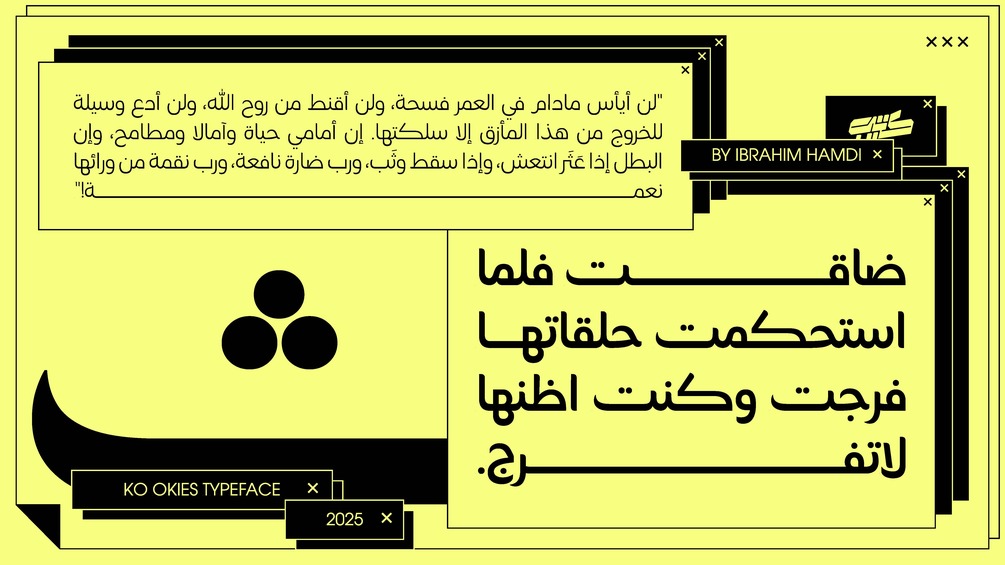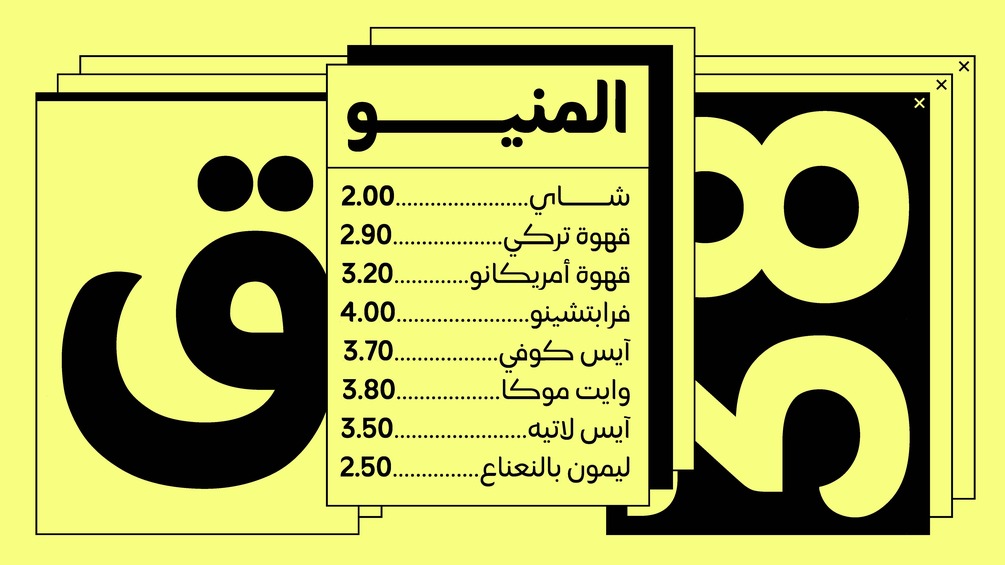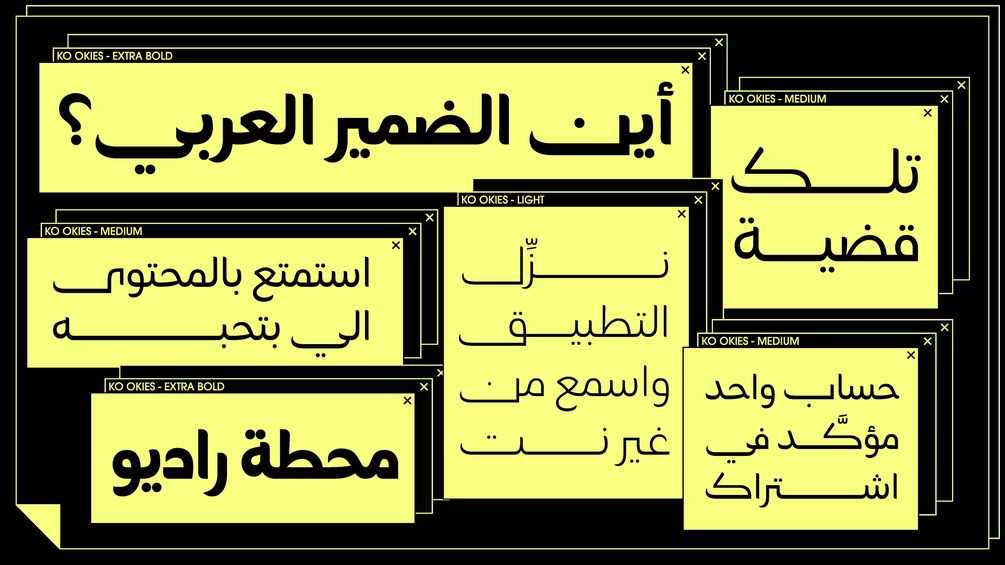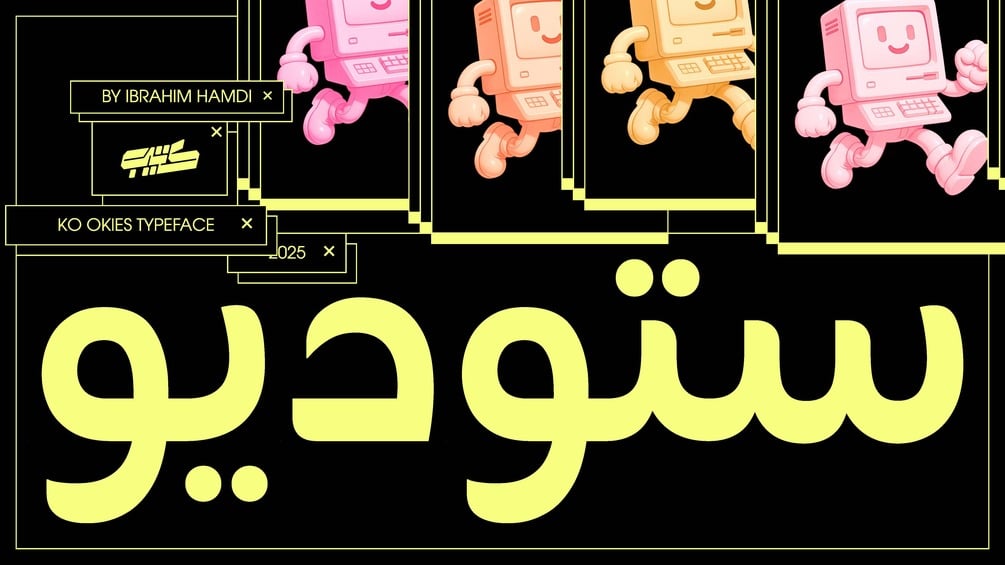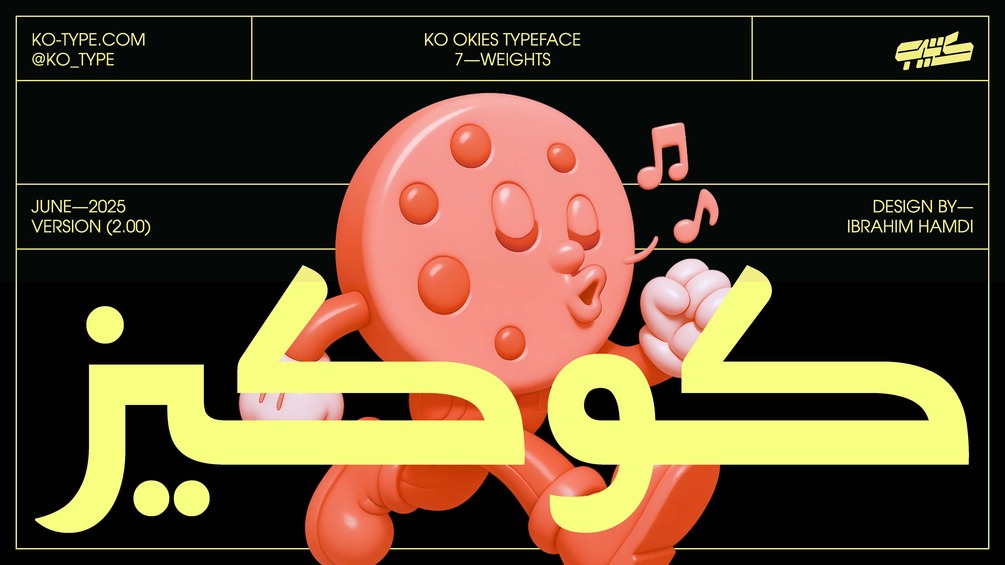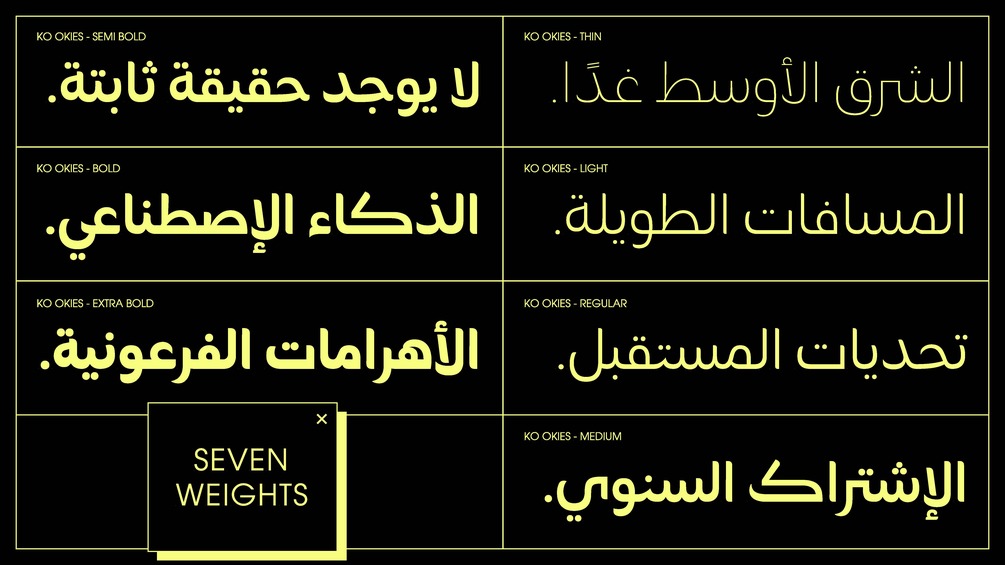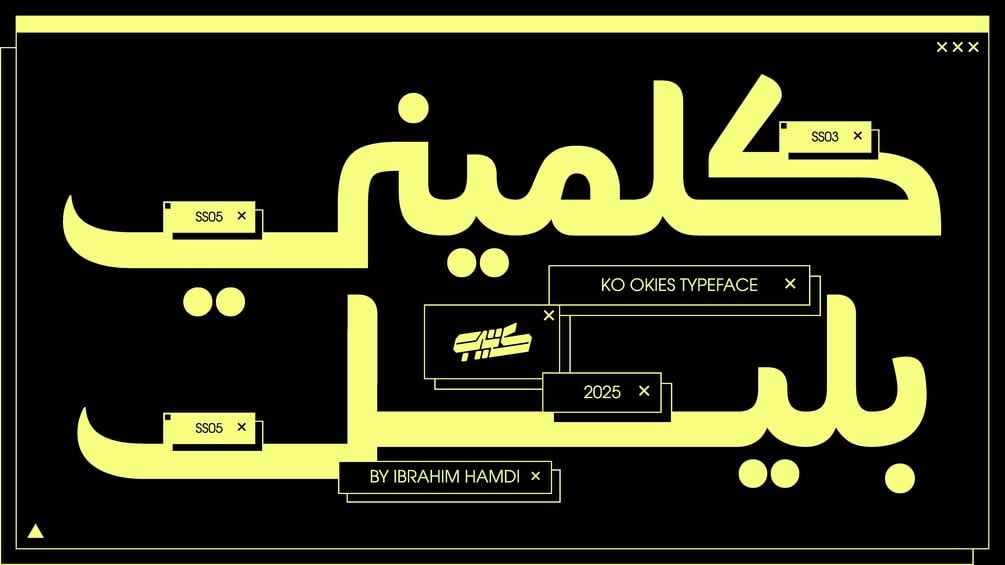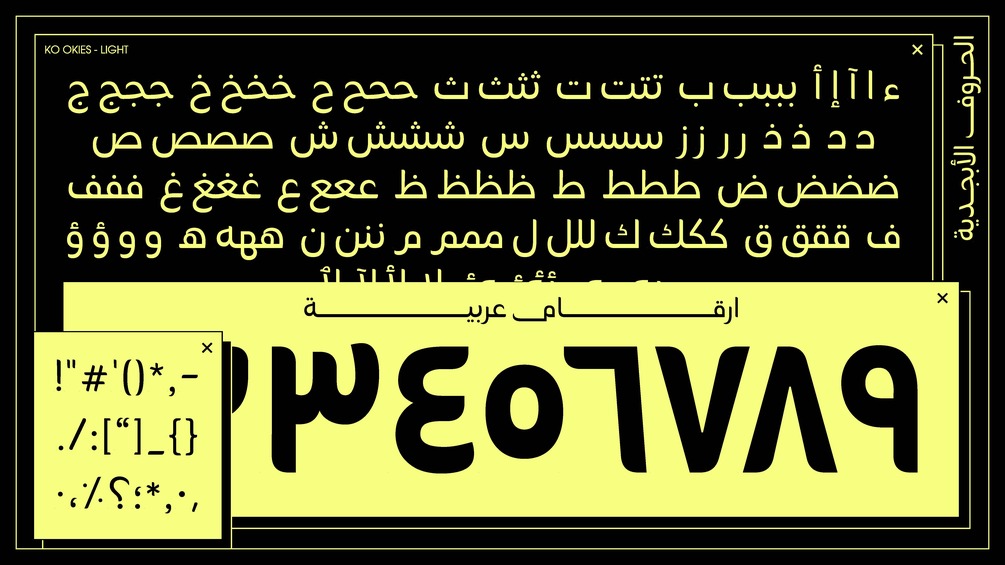
Kookies Typeface
Kookies Typeface is a modern Arabic typeface. It features seven distinct weights—from Thin to Extra Bold—offering flexibility for a wide range of applications. The design strikes a unique balance between sharp and rounded edges, creating a friendly yet professional appearance. Kookies was specially crafted for food branding and packaging projects, but its clean, contemporary look makes it incredibly versatile, performing beautifully in both large headlines and small text.
Sans Arabic typeface
Ibrahim Hamdi
Contextual Alternates, Discretionary Ligatures, Required Ligatures.